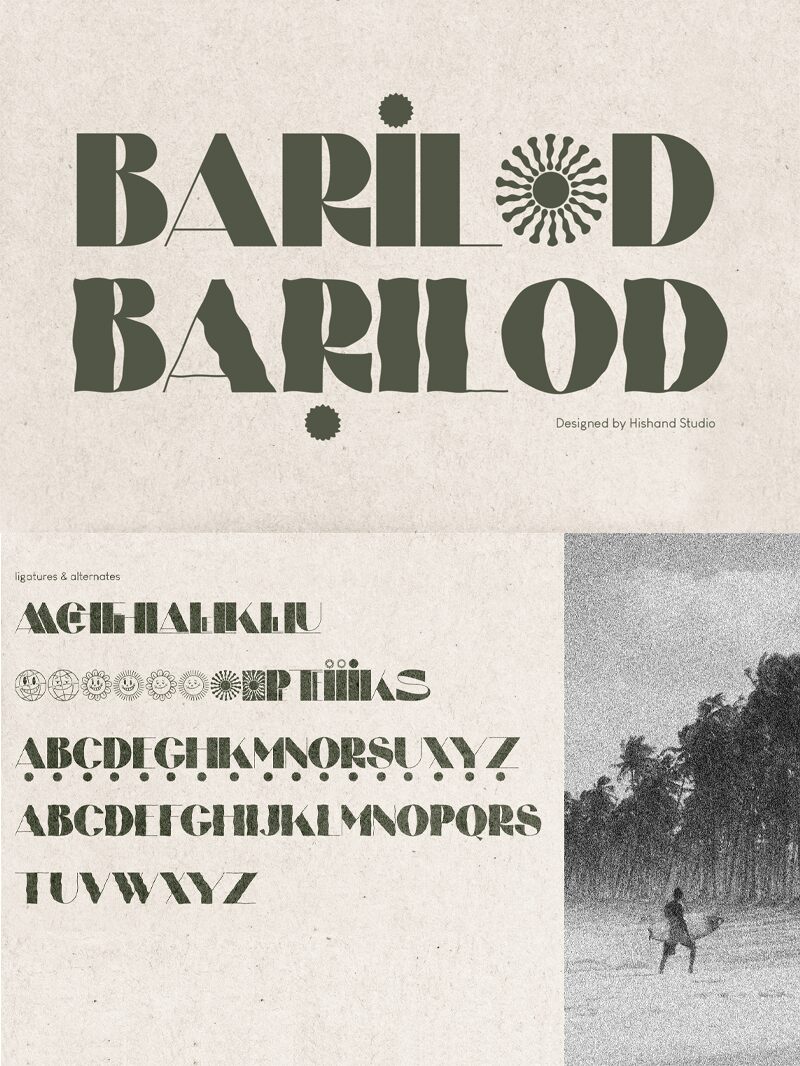
Barilod font by Hishand Studio is a bold, retro display font that captures attention with its striking originality. This free font download combines vintage charm with modern flair, making it ideal for designers seeking a distinct statement piece.
Its dramatic curves and expansive shapes evoke nostalgia while maintaining contemporary appeal. Perfect for posters, logos, and branding projects, Barilod's unique style ensures your message stands out.
BARILOD
Hishand Studio